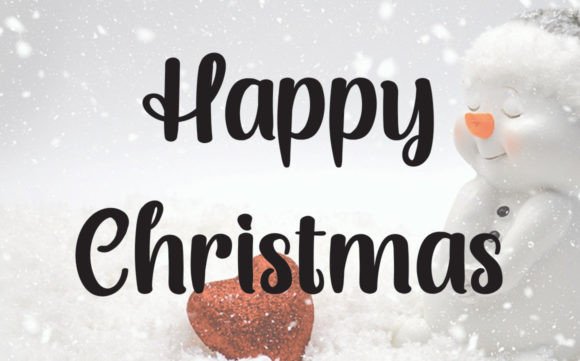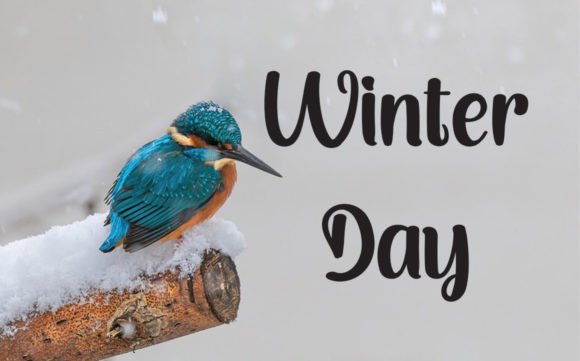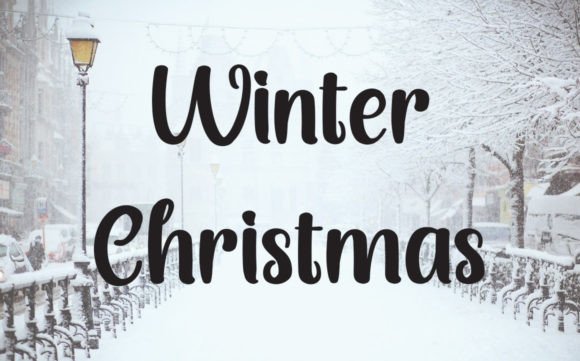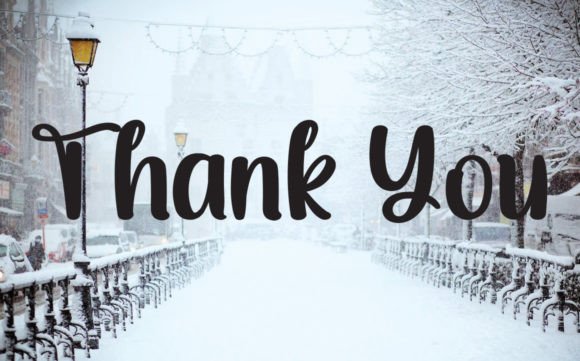
Snowlake Font
The Snowlake Font Download is a sweet and delicate handwritten script designed to add charm and elegance to your creative projects. With joyful and dainty handwritten strokes, this font captures a romantic and graceful spirit that fits both personal and professional work. Whether you are designing wedding invitations, greeting cards, or digital designs, Snowlake brings a soft handwritten charm that makes your projects shine.
A Script with Romantic and Modern Elegance
The Snowlake script font blends delicate handwritten details with balance and clarity. As a result, it feels timeless, stylish, and versatile. Furthermore, it transitions seamlessly from small stationery projects to bold digital layouts, making it a dependable font for hobbyists and professionals alike.
Handwritten fonts always add intimacy and emotion. The Snowlake Font is perfect for wedding invitations, thank you notes, birthday cards, and seasonal greetings. Because of its dainty handwritten character, every design looks unique and heartfelt. In addition, it ensures that your stationery projects leave a lasting impression.
Branding and Logo Design with Snowlake Font
Typography is key to brand identity. The Snowlake handwritten font works beautifully for boutique logos, product packaging, and promotional campaigns. Its romantic handwritten strokes make brands appear approachable while keeping a professional style. Therefore, it is especially effective for fashion, lifestyle, and creative businesses.
Posters, Titles, and Editorial Designs
The Snowlake Font Download also excels in posters, magazines, banners, and book covers. It remains legible across all sizes while adding elegance and sophistication. Consequently, it is a reliable choice for designers who value both beauty and clarity in their projects.
In today’s fast-paced digital environment, fonts must adapt smoothly across platforms. The Snowlake typeface integrates perfectly into Instagram posts, Pinterest graphics, YouTube thumbnails, and blogs. Because of its delicate handwritten charm, it ensures digital projects look modern, romantic, and engaging.
Why Designers Choose Snowlake Typeface
Designers love fonts that balance usability with personality. The Snowlake handwritten script keeps its romantic and sweet appearance while staying easy to read. This makes it suitable for both professionals and hobbyists. Moreover, its timeless handwritten style ensures it will remain a popular choice for years to come.
Add Romantic Charm to Your Projects Today